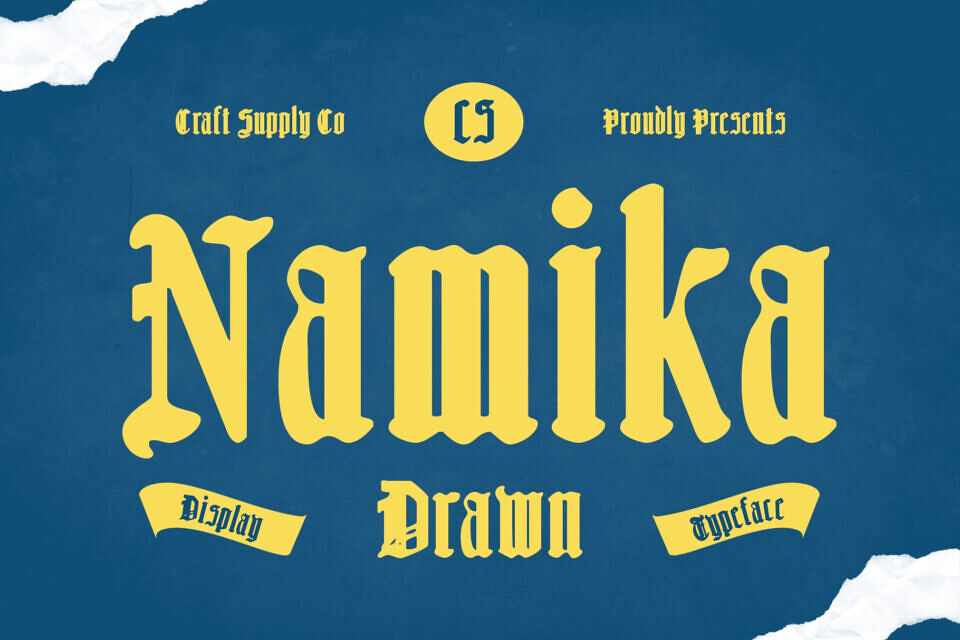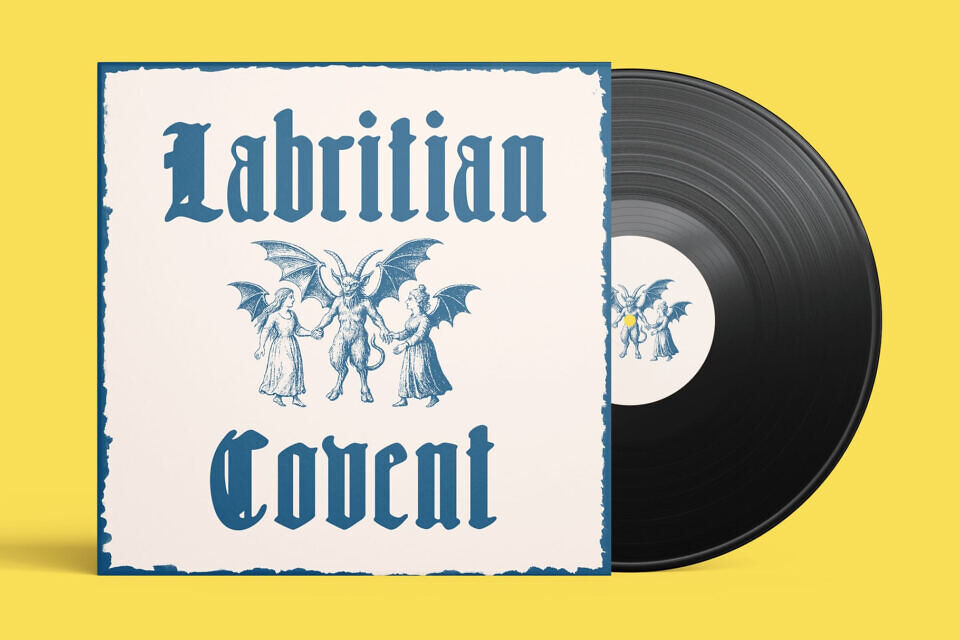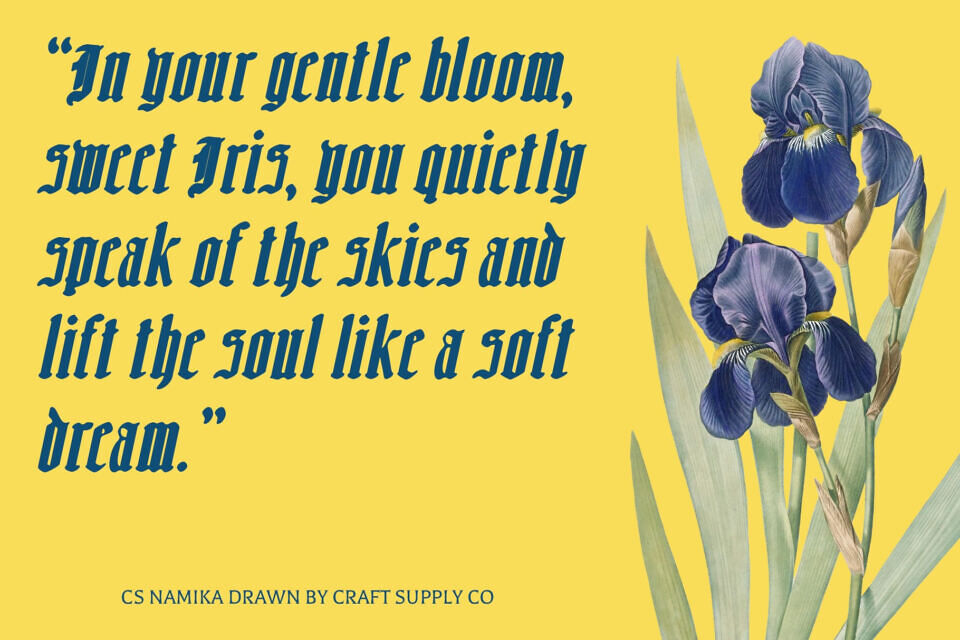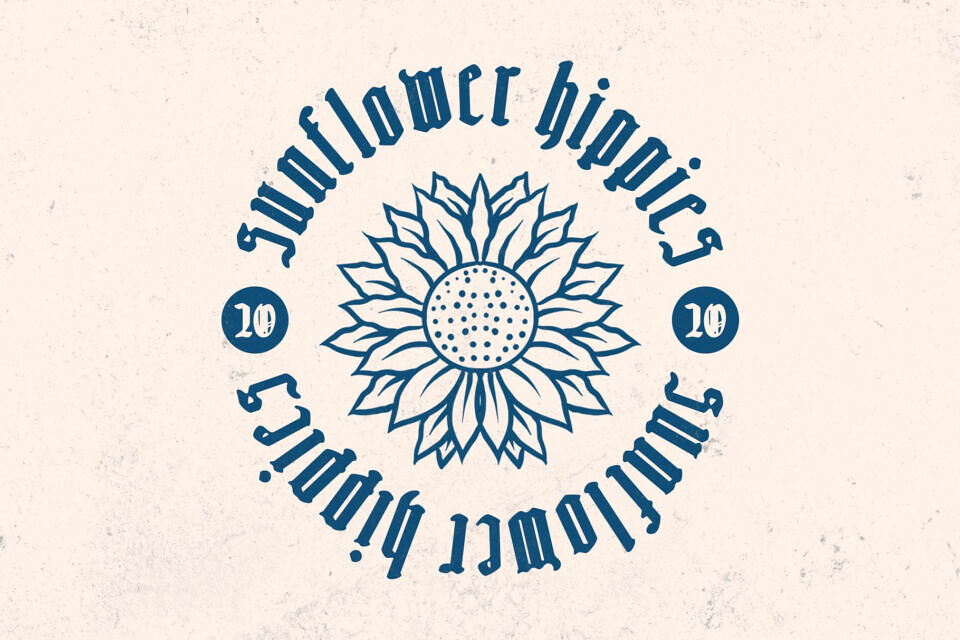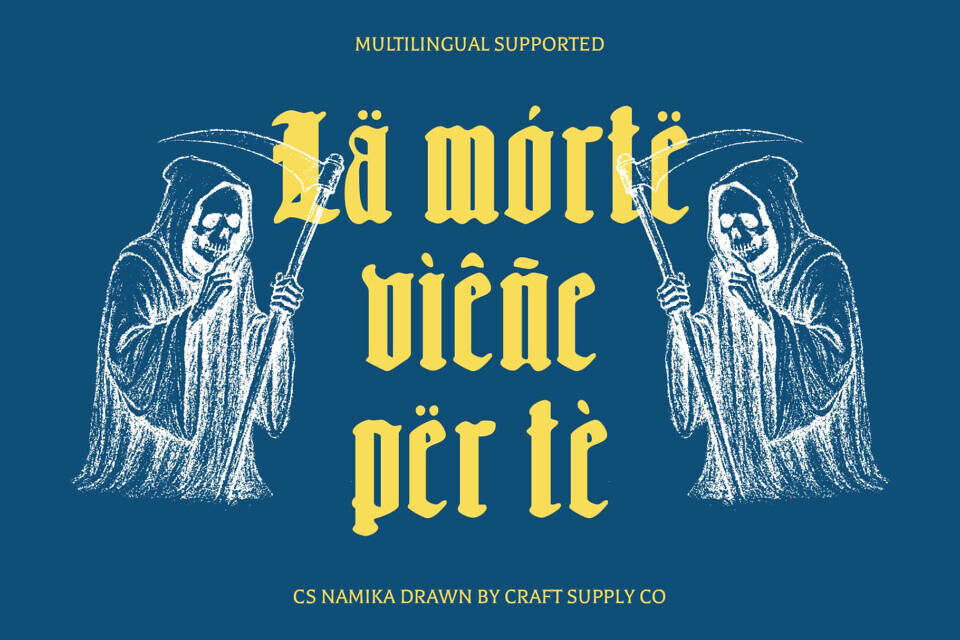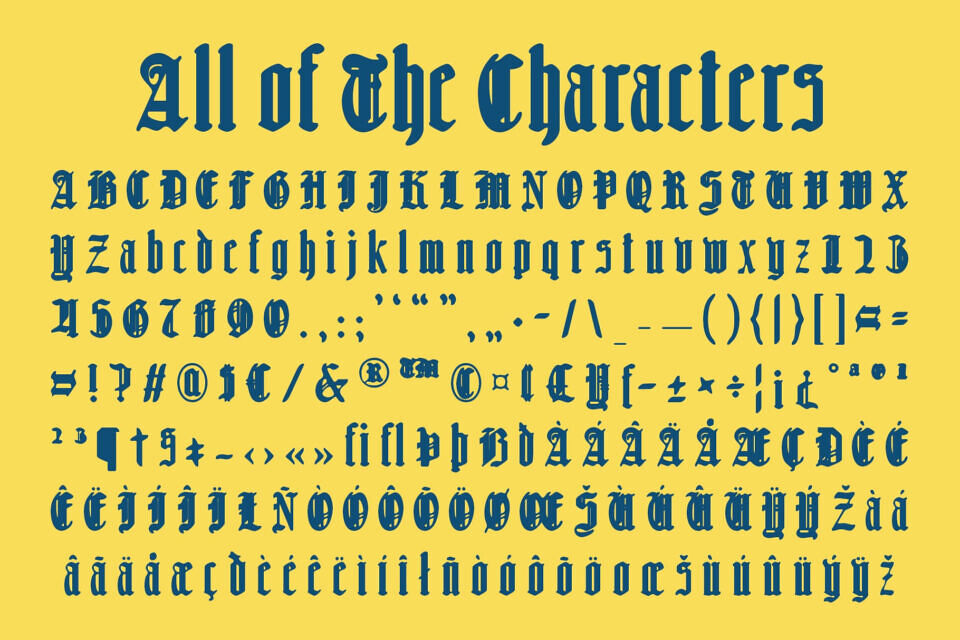
Cs Namika Drawn Font
This bold Blackletter font commands attention with its decorative, handcrafted texture. Strong, ornamental shapes evoke tradition and authority, while handmade detailing adds depth and personality.
Ideal for posters, branding, and book titles, it blends classic elegance with modern impact, creating a striking, memorable typographic identity for diverse projects.